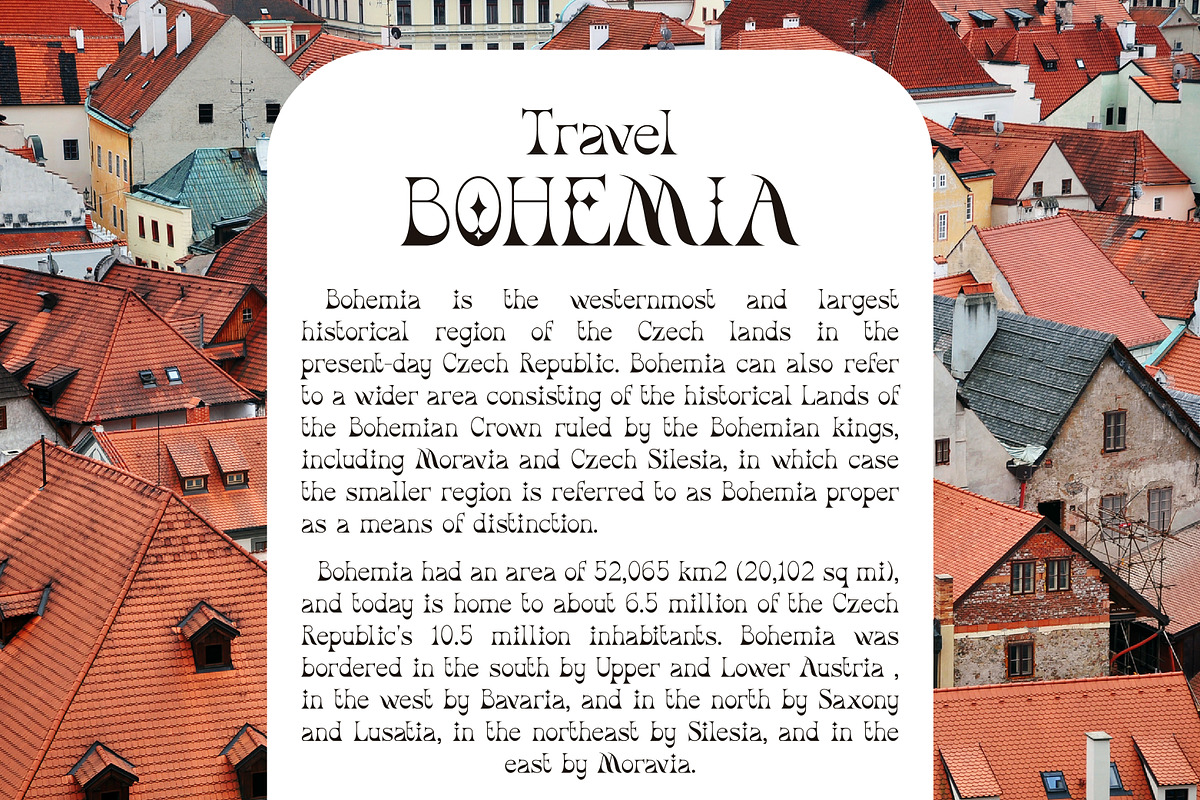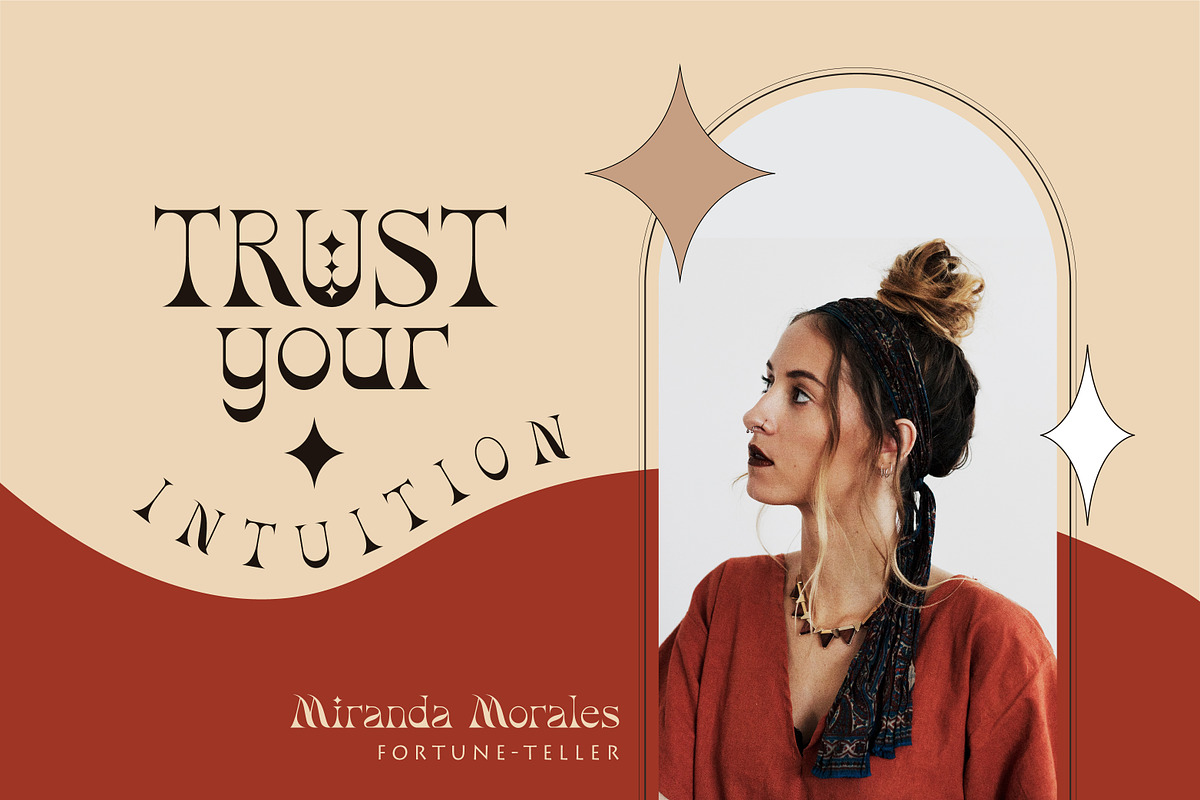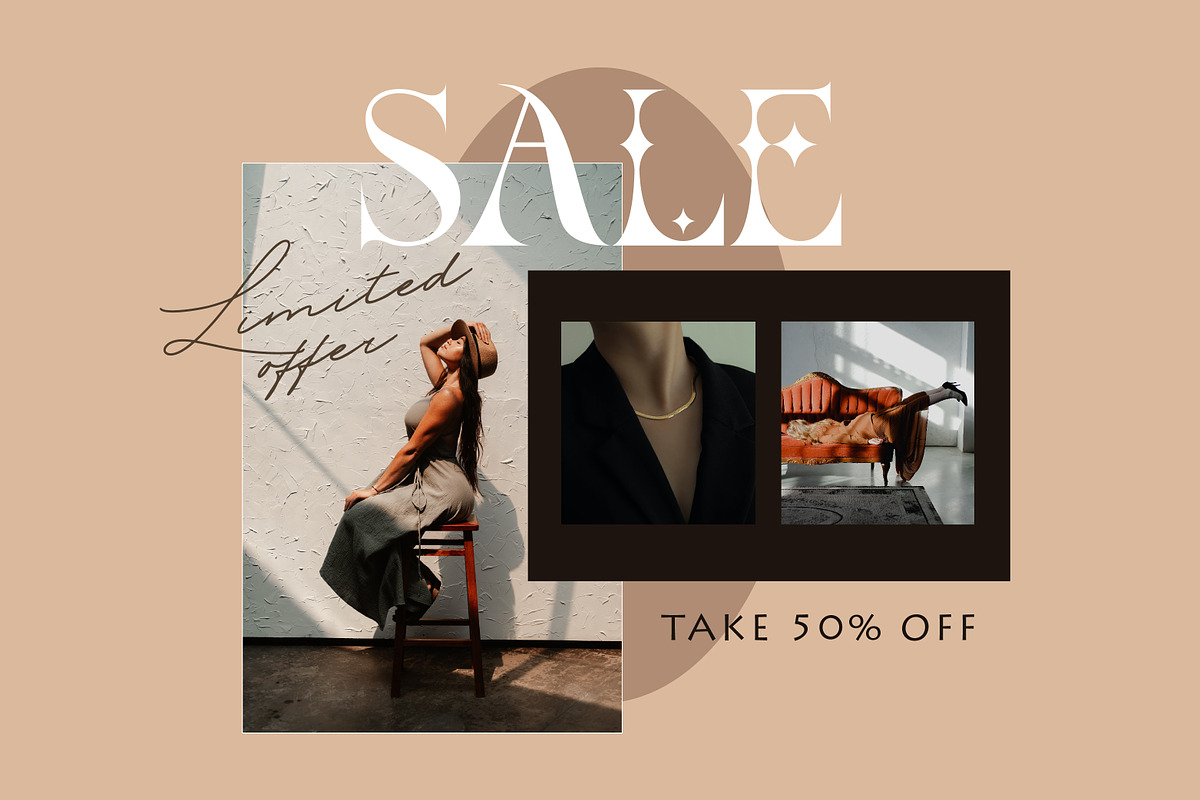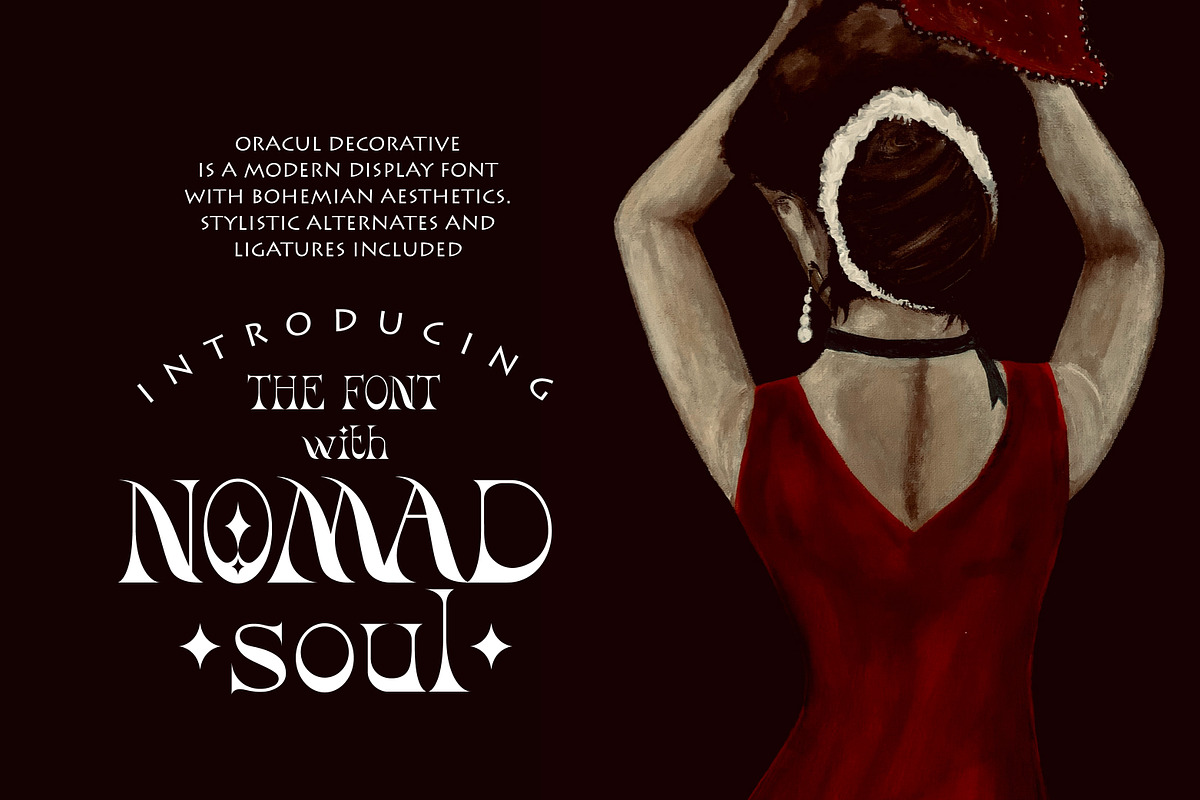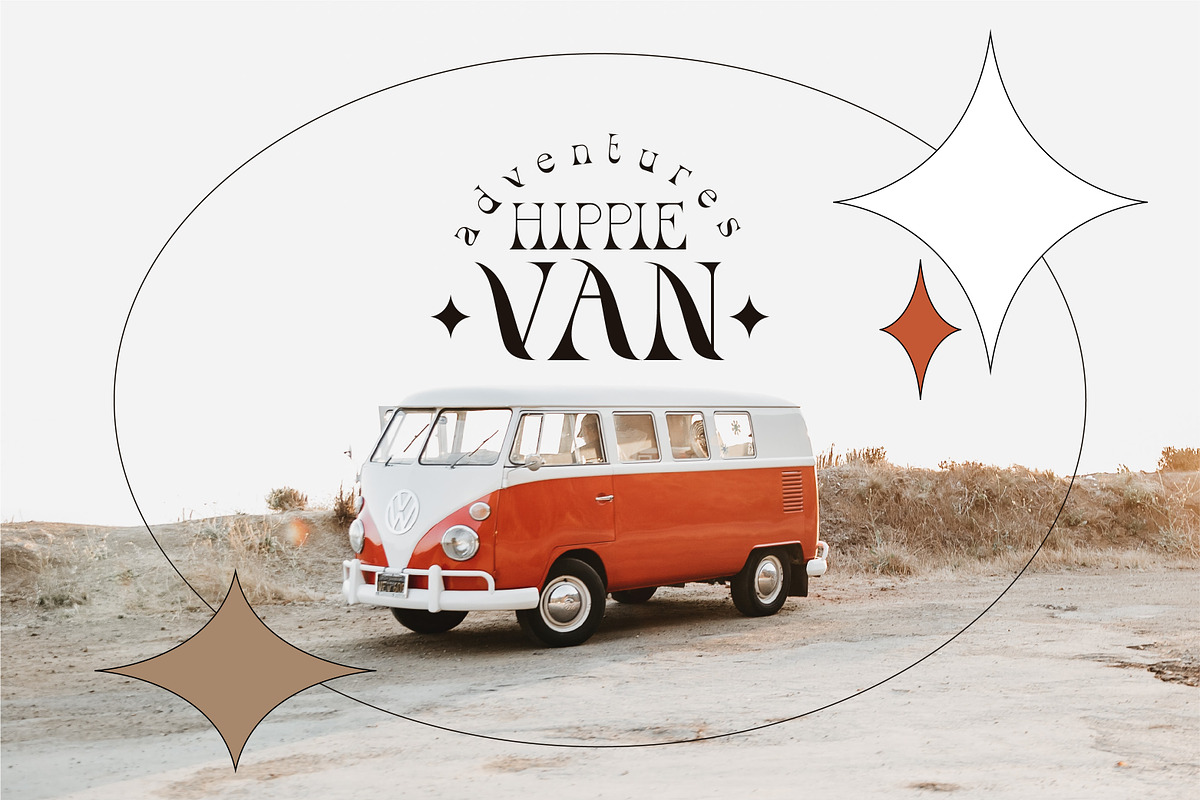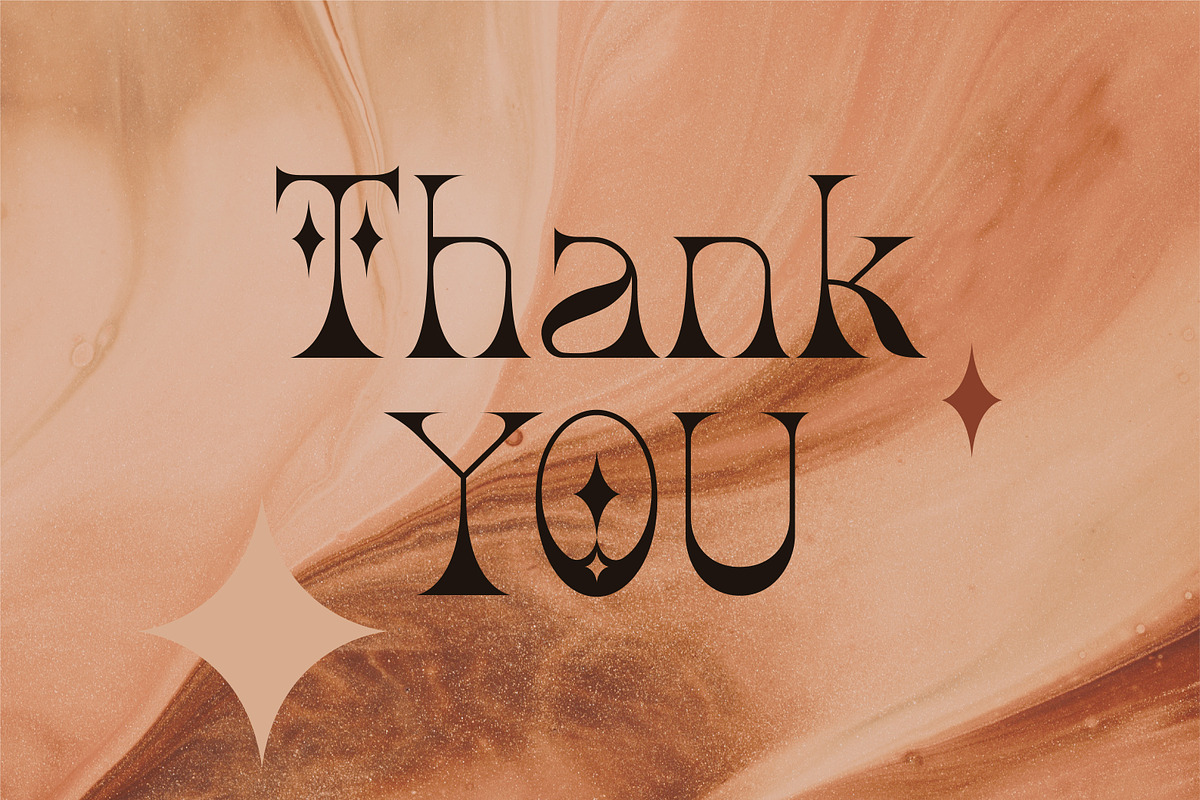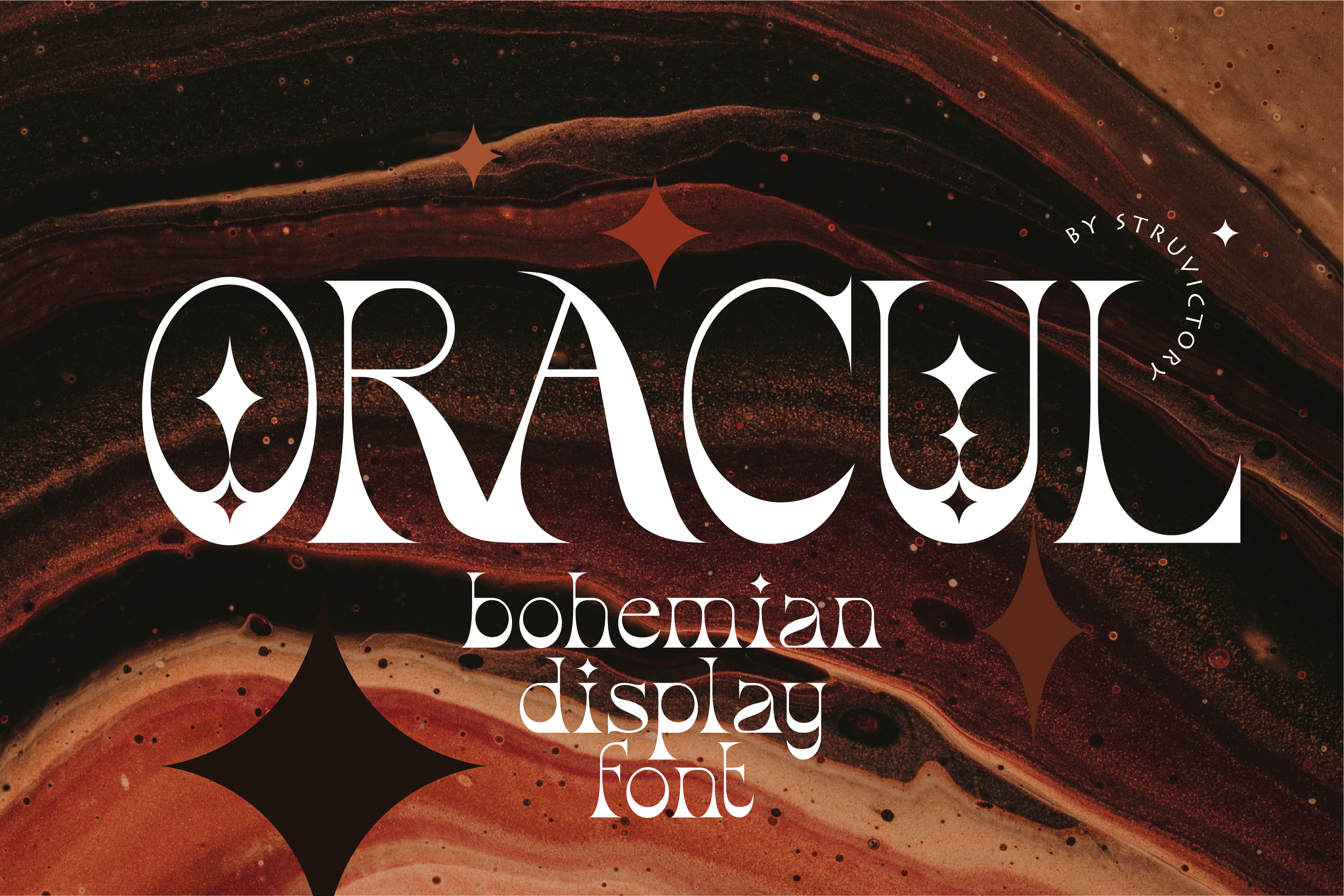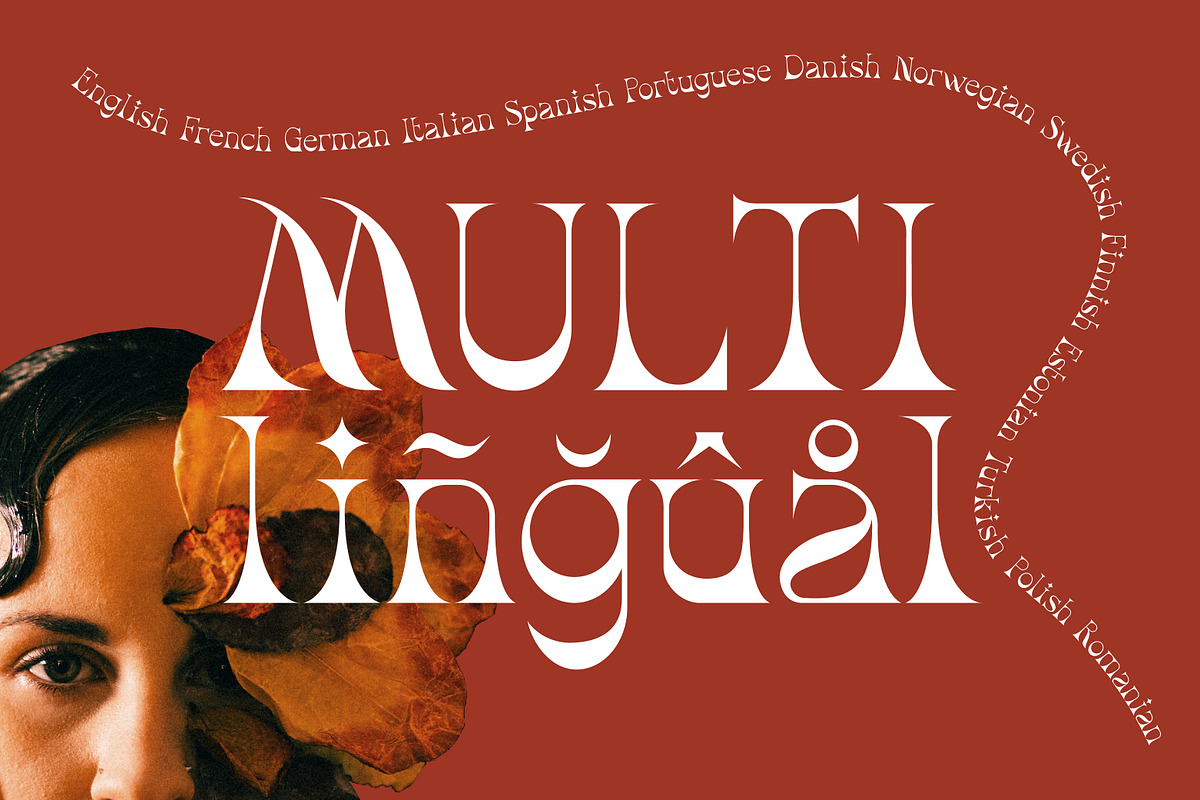
Oracul - Bohemian Display Font
Oracul is a modern display font with Bohemian motives. The font is created in a psychedelic retro style and decorated with the stars. Oracul includes stylistic alternates and ligatures. The font is suitable for the design on the theme of astrology, mysticism, spirituality, witchcraft, magic, esotericism, fortune-telling, tarot.
Oracul has extensive language support, it includes English, French, German, Italian, Spanish, Portuguese, Danish, Norwegian, Swedish, Finnish, Estonian, Turkish, Polish, Romanian. Need to know if your language is supported? Type any words in the text box below and see if all characters you need are there.
Oracul font includes stylistic alternates for symbols: E, H, I, J, L, O, Q, T, U, Y. There are also ligatures: MA, RA, KA, XA, AA, AM, RM, OO, ft. Please contact me if you are not sure that OpenType functions will work correctly in your programs.